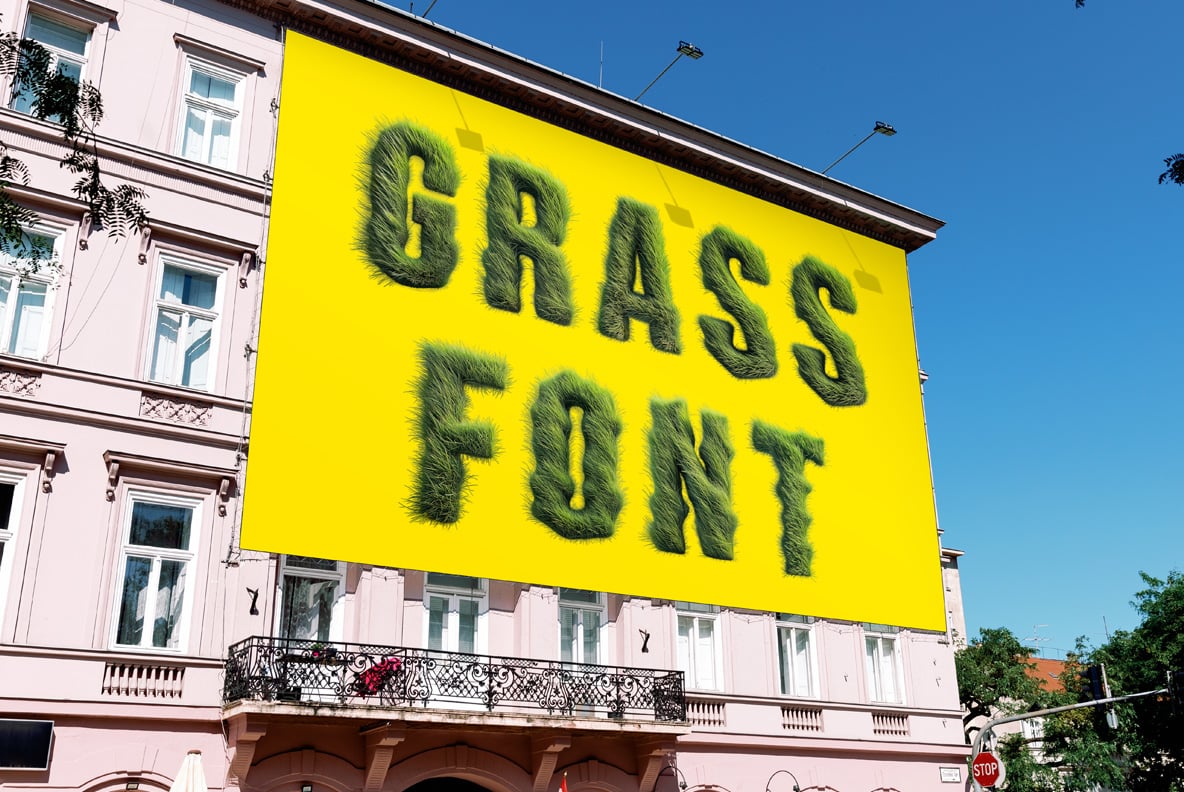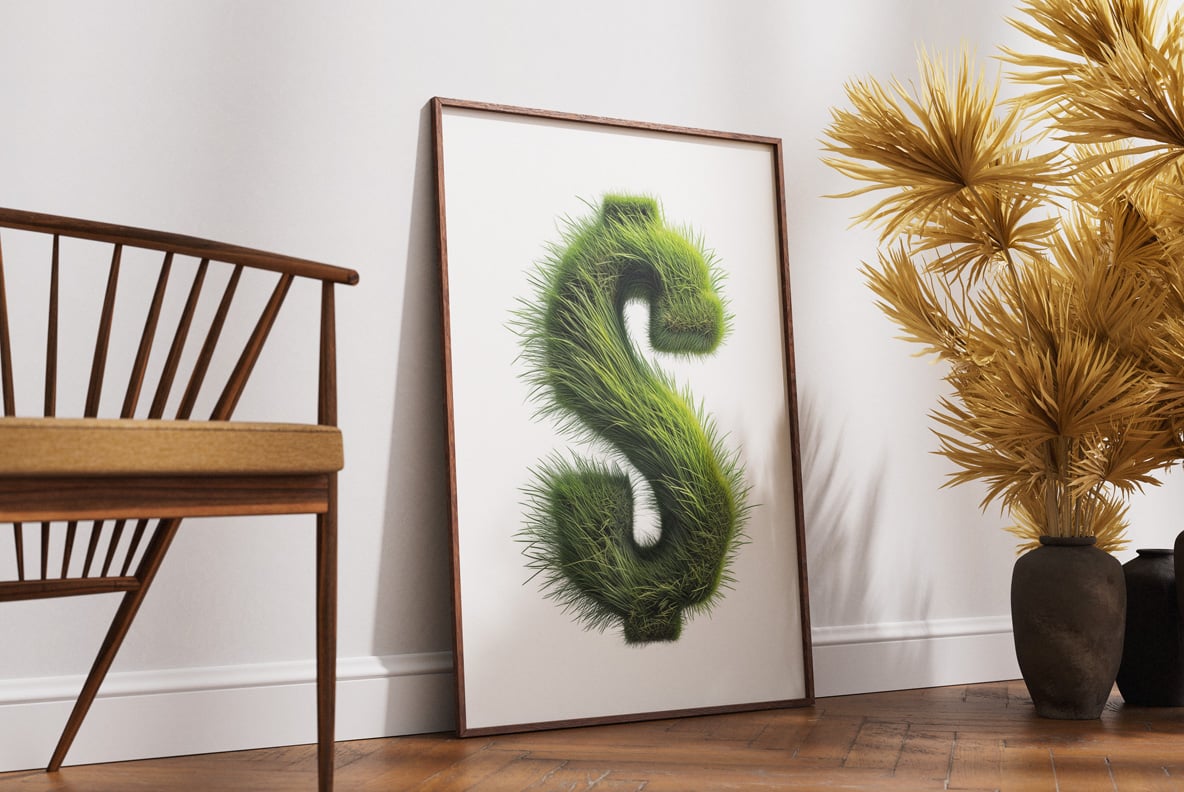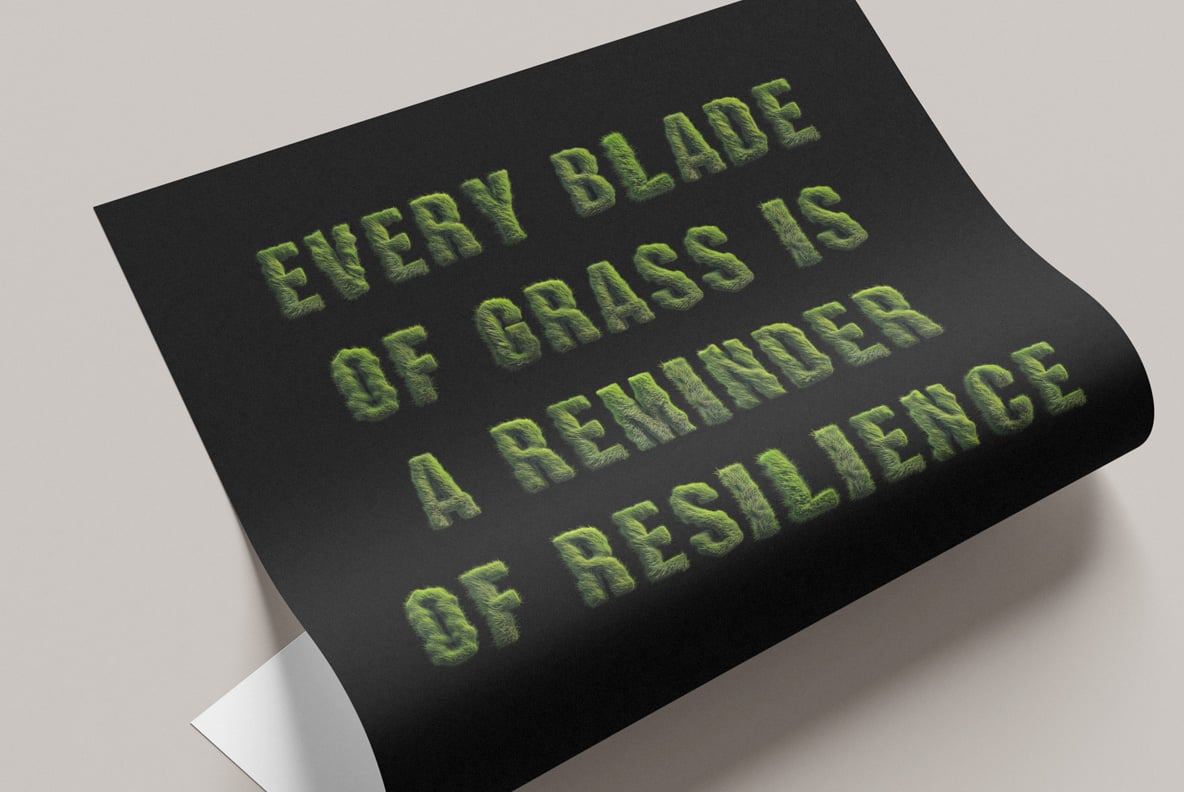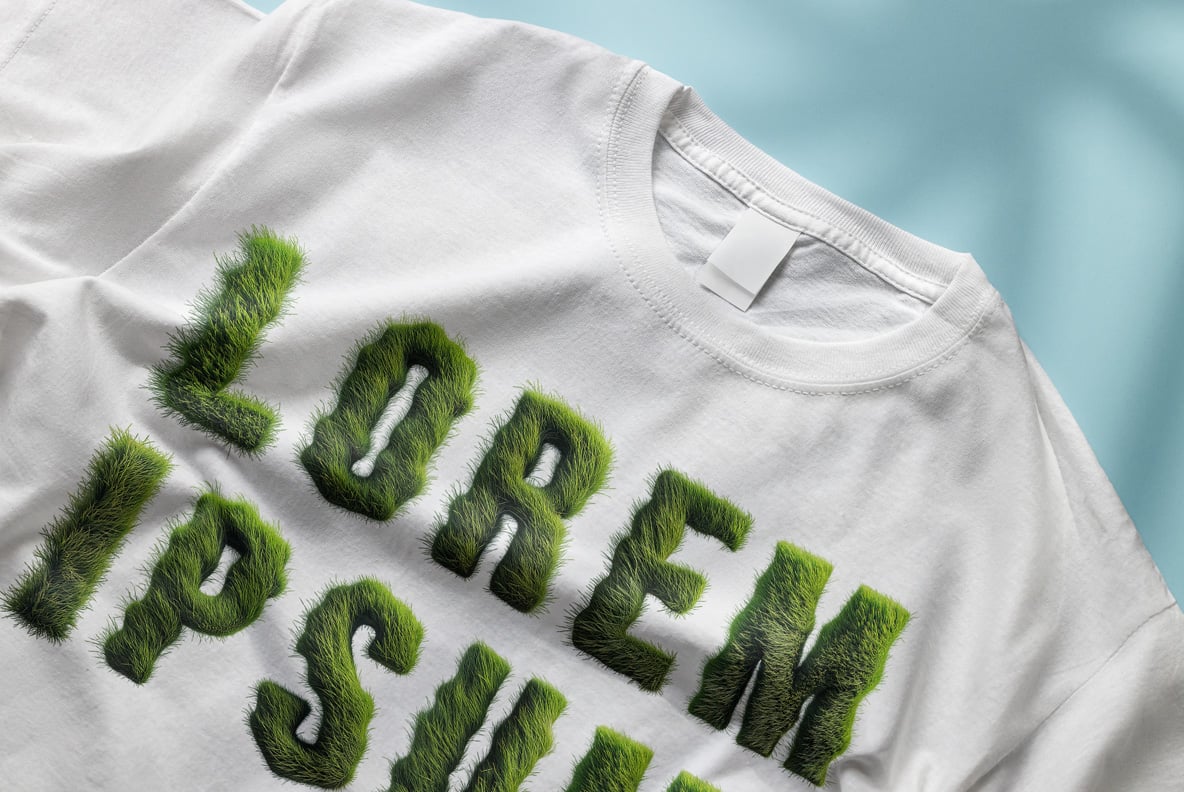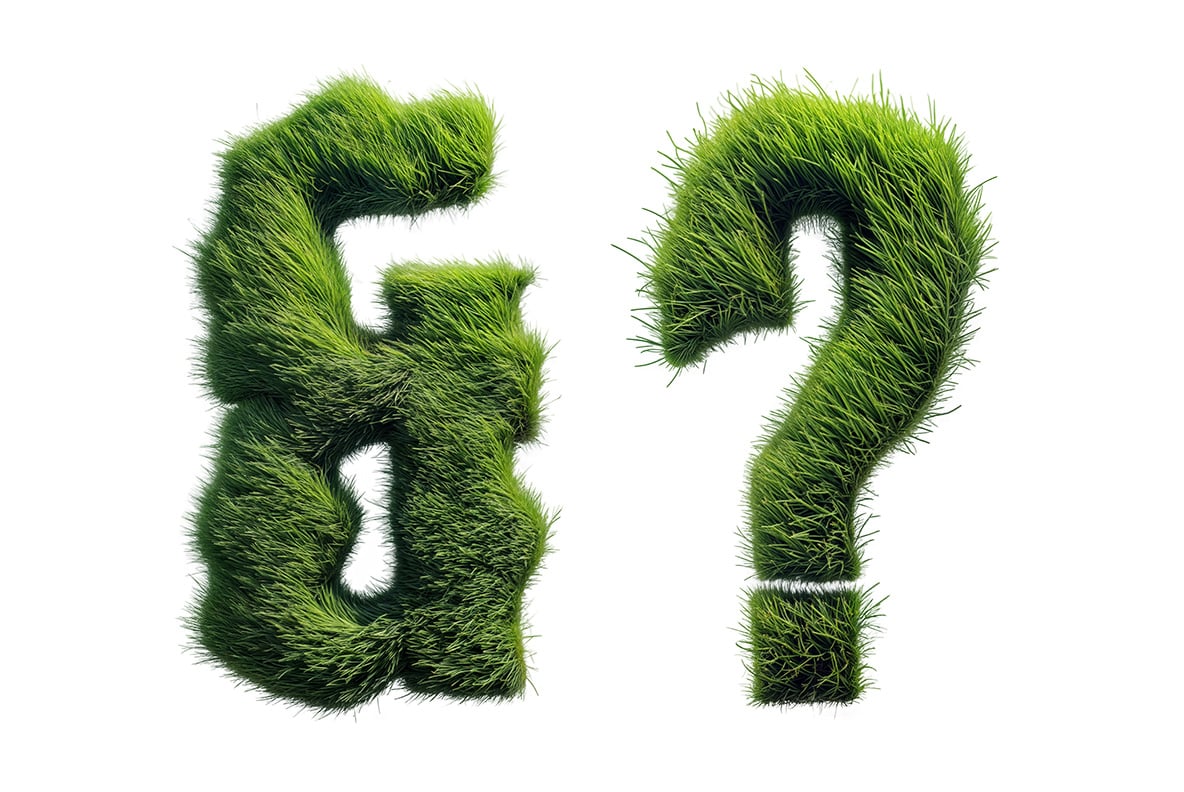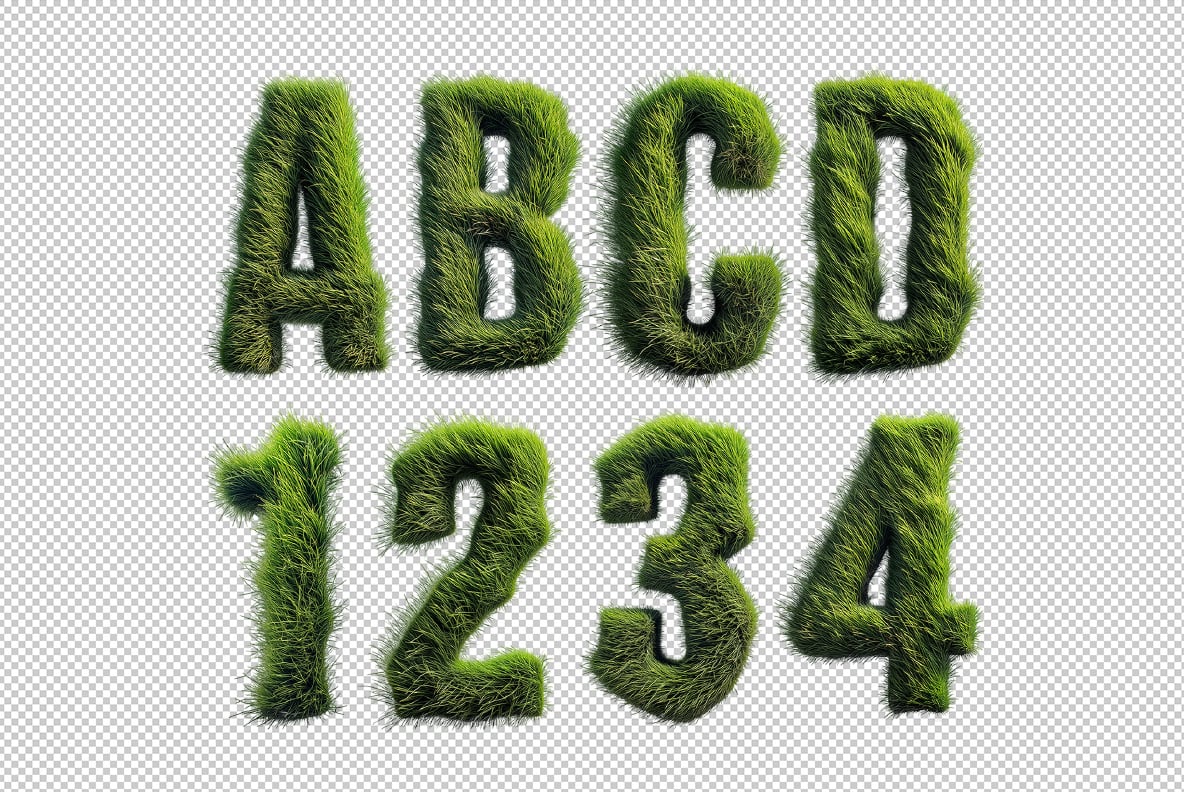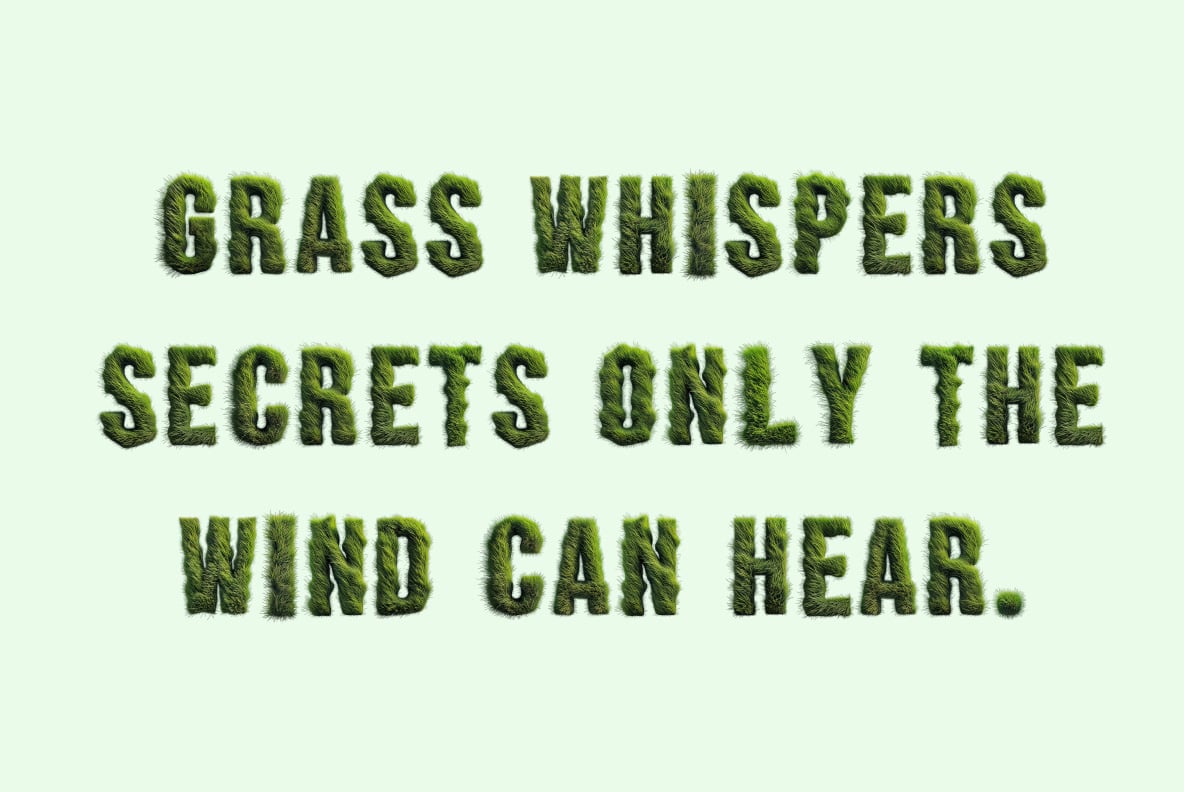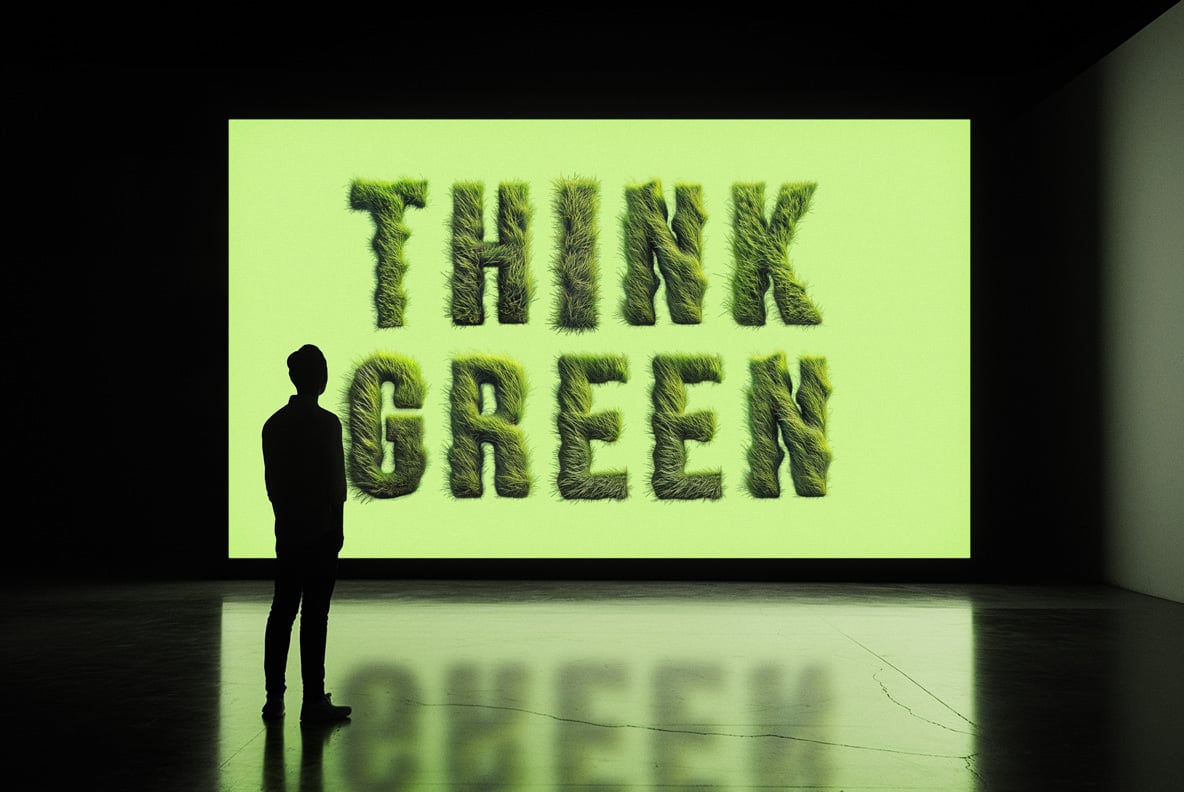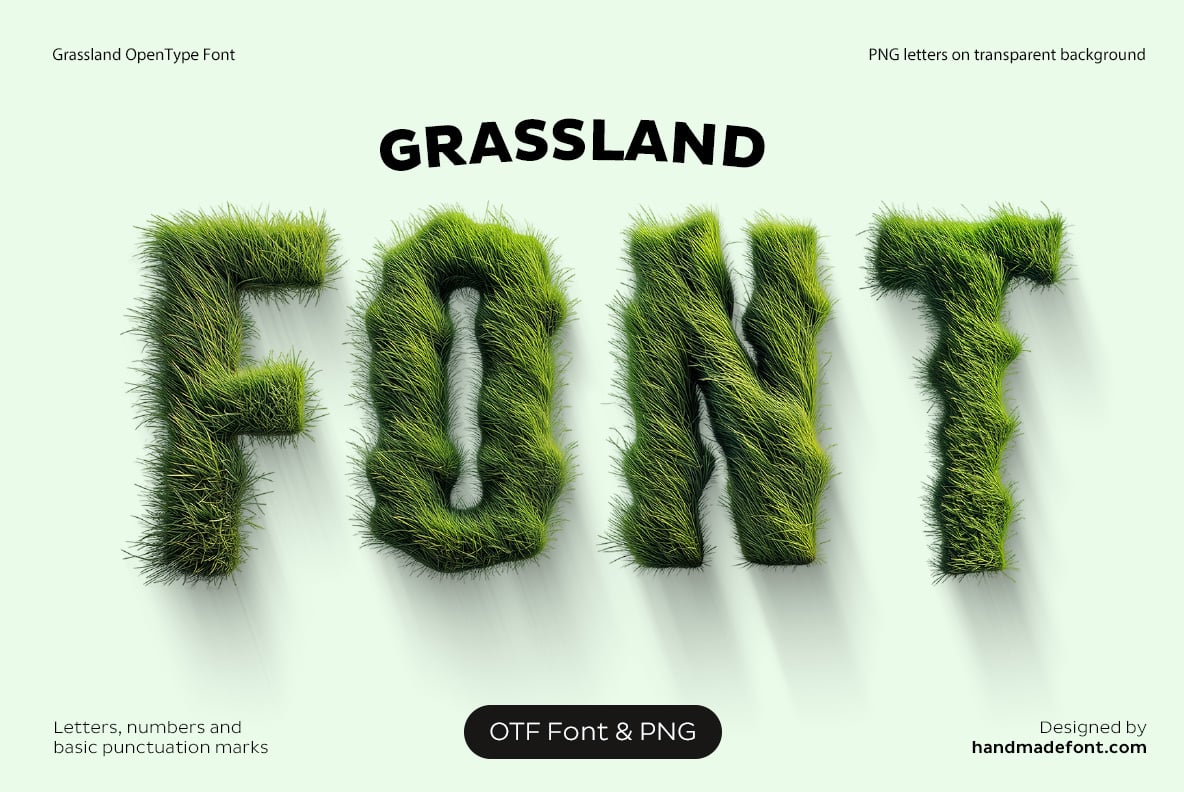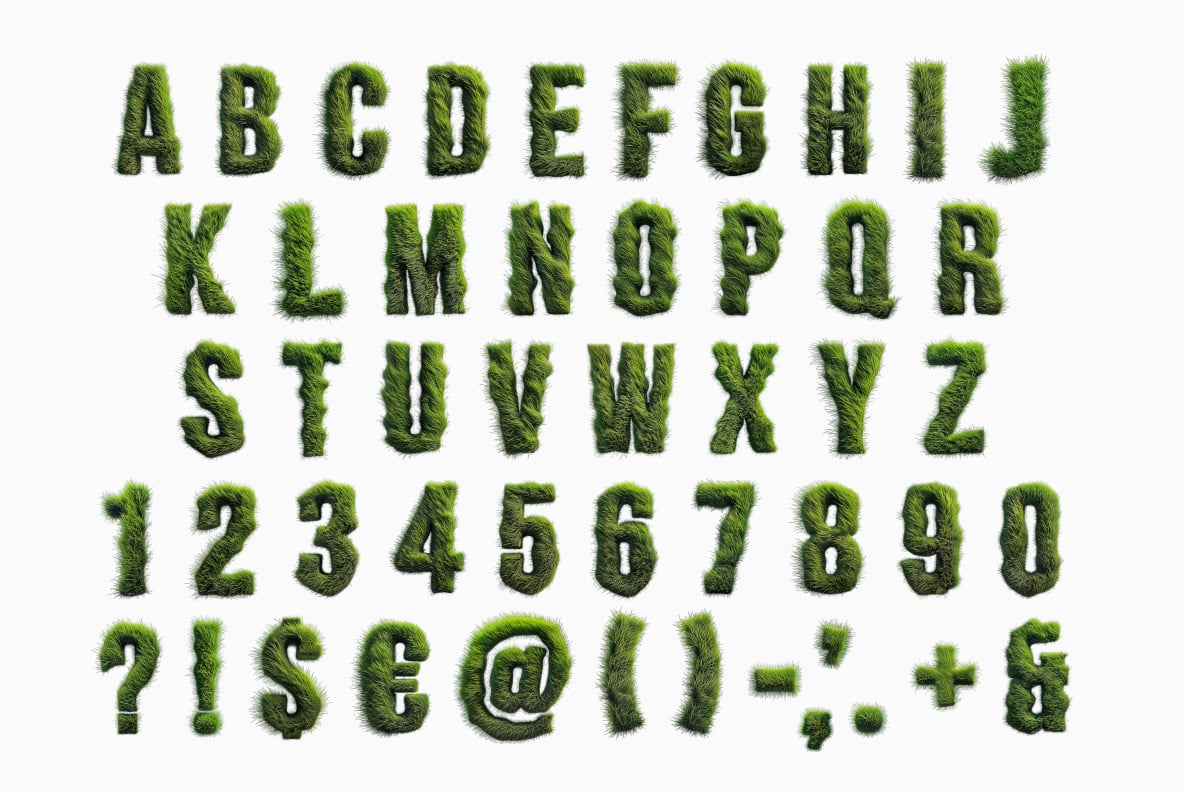
Grassland Font
Green and vibrant, Grassland Font is a stunning creation where each letter bursts to life with lush green grass. This grass-inspired font captures the beauty of nature, transforming the alphabet into a living, breathing landscape. Every letter is meticulously crafted with detailed grass textures, creating a soft, fluffy, and three-dimensional appeal. The evenly distributed blades of grass give the font a balanced and harmonious look, perfect for designs seeking an organic, eco-friendly touch. Grass typography meets creativity, blending natural aesthetics with bold lettering to evoke a sense of freshness and vitality. Grassland Font is ideal for logos, posters, and projects that celebrate nature, making it a perfect choice for eco-conscious themes and imaginative typography lovers.